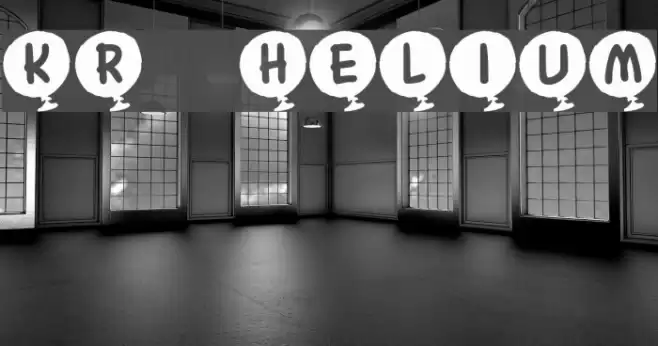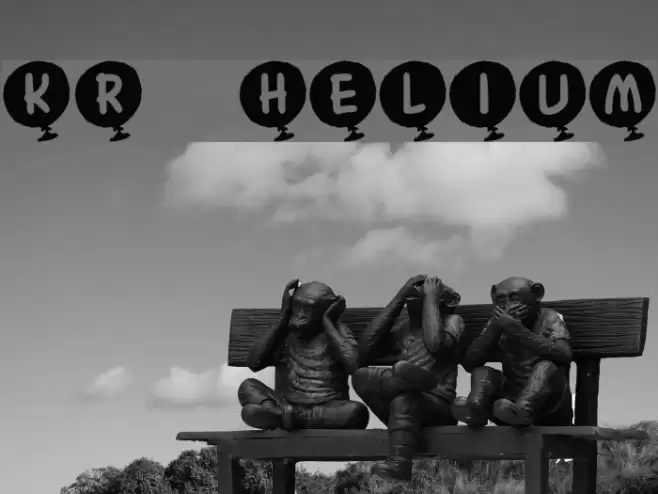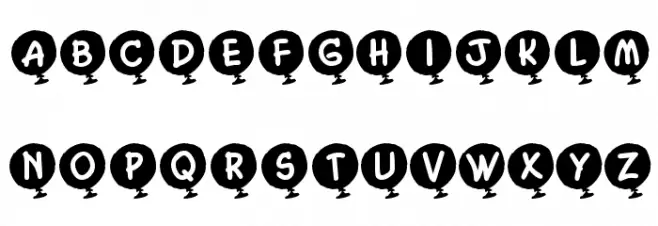
KR Helium Font
KR Helium Description
This playful and whimsical font features characters designed to resemble balloons, each letter encapsulated within a round, inflated shape. The bold, rounded forms give a sense of fun and lightheartedness, making it ideal for projects that aim to convey joy and celebration. The font's unique style is characterized by its uniformity in shape, with each letter maintaining a consistent balloon-like appearance. The characters are evenly spaced, providing a balanced and harmonious look. This font is perfect for children's parties, festive invitations, or any design that requires a touch of cheerfulness and creativity.
A playful, balloon-themed font ideal for festive and joyful designs from Uncategorized fonts.
- Proposed Projects: Children's party invitations, festive banners, playful greeting cards, and celebratory posters.
- Overall Style: Playful, Whimsical
- Use Case: Headlines, Logos, Invitations